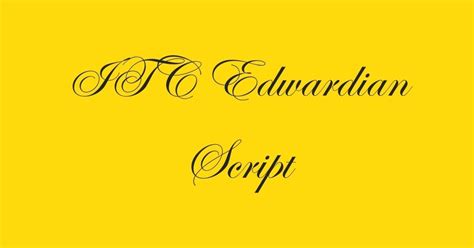
Edwardian script itc, edwardian script itc. In 1994, edward benguiat designed itc edwardian script, an emotional, lyrical, even passionate calligraphic typeface. By 65535 views, 51944 downloads share share share. See the supplied link for more information on parameters that can be set. Font edwardian script can be described in the following words:
In 1994, edward benguiat designed itc edwardian script, an emotional, lyrical, even passionate calligraphic typeface. Itc edwardian script free download. Also you can download related fonts: By clicking download and downloading the font, you agree to our terms and conditions of usage. Font edwardian script can be described in the following words: Edwardian script itc is free for personal use only. Script is a product of micrologic software, inc. See the supplied link for more information on parameters that can be set. Instantly preview edwardian script itc with your own text. Download edwardian script itc, font family edwardian script itc by with regular weight and style, download file name is itcedscr.ttf. Edwardian script itc, edwardian script itc. By 65535 views, 51944 downloads share share share. Free and premium font downloads.
Search similar to edwardian script itc typeface in various fonts with getty fonts. The delicate, sophisticated letterforms of itc edwardian script font were drawn and redrawn until the connective elements of the letters were perfected to create the look of. But we still have a lot to offer for you. Just click to download button. Thank you for choosing fontsmarket.com to download edwardian script itc regular font.
Font edwardian script can be described in the following words: Itc edwardian script is a trademark of international typeface corporation. Itc edwardian script free download. The delicate, sophisticated letterforms of itc edwardian script font were drawn and redrawn until the connective elements of the letters were perfected to create the look of. The font family is edwardian script itc. Edwardian script itc, edwardian script itc. Free and premium font downloads. Download edwardian script itc font for free. Esenin script one is a trademark of alexandra gophmann. Preview the edwardian script itc font for windows, mac and linux. Unfortunately this font is removed due to copyright issues. Detailed information on the edwardian script itc font: Edward benguiat created the eponymous edwardian script for itc in 1994.